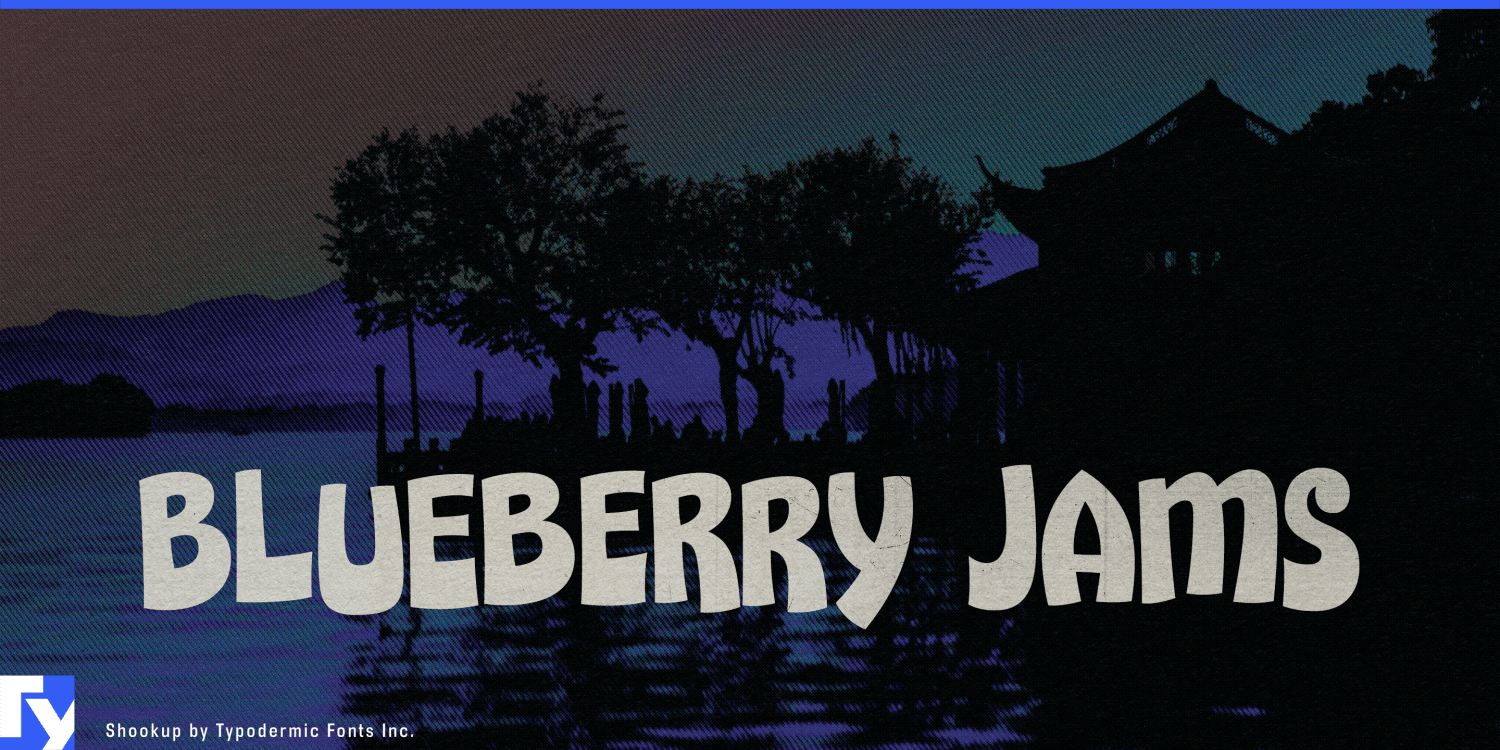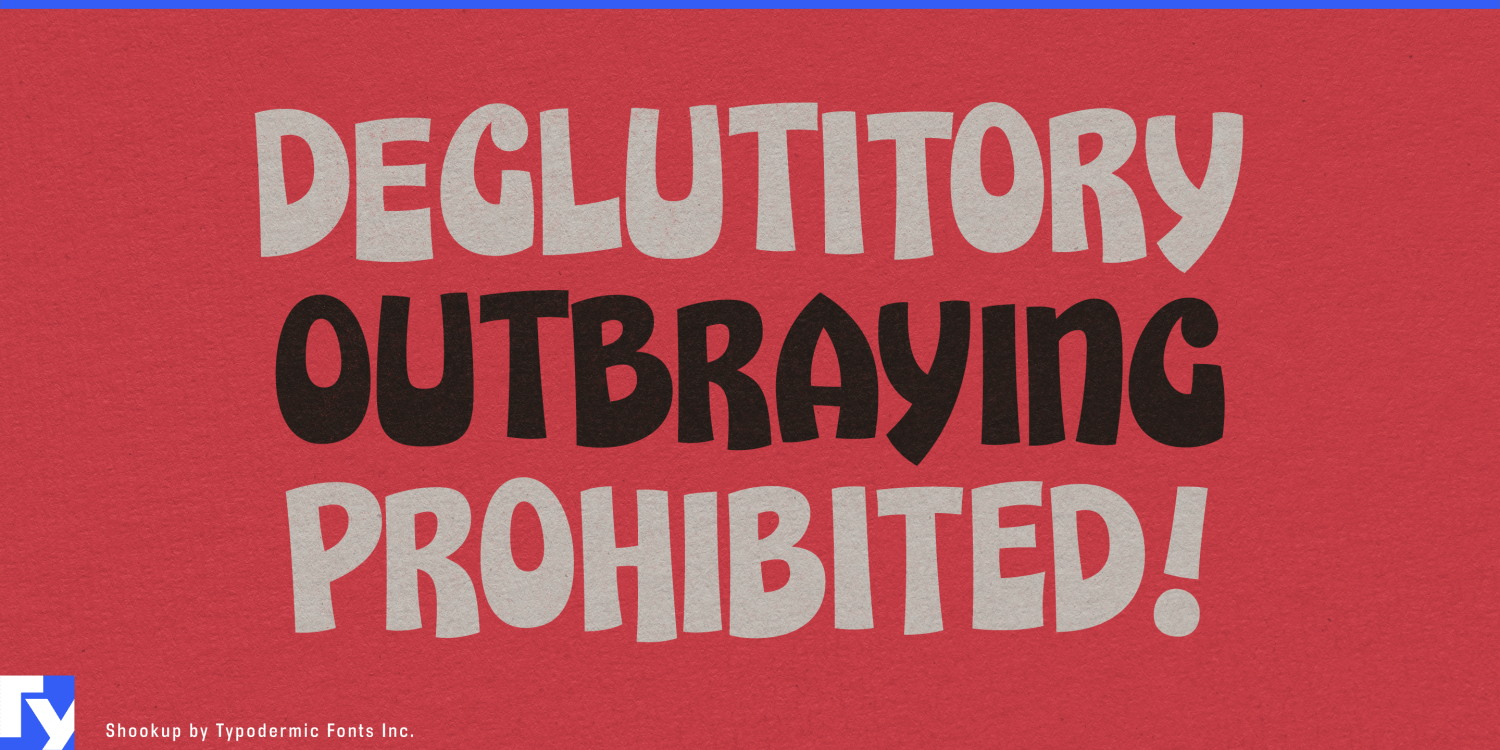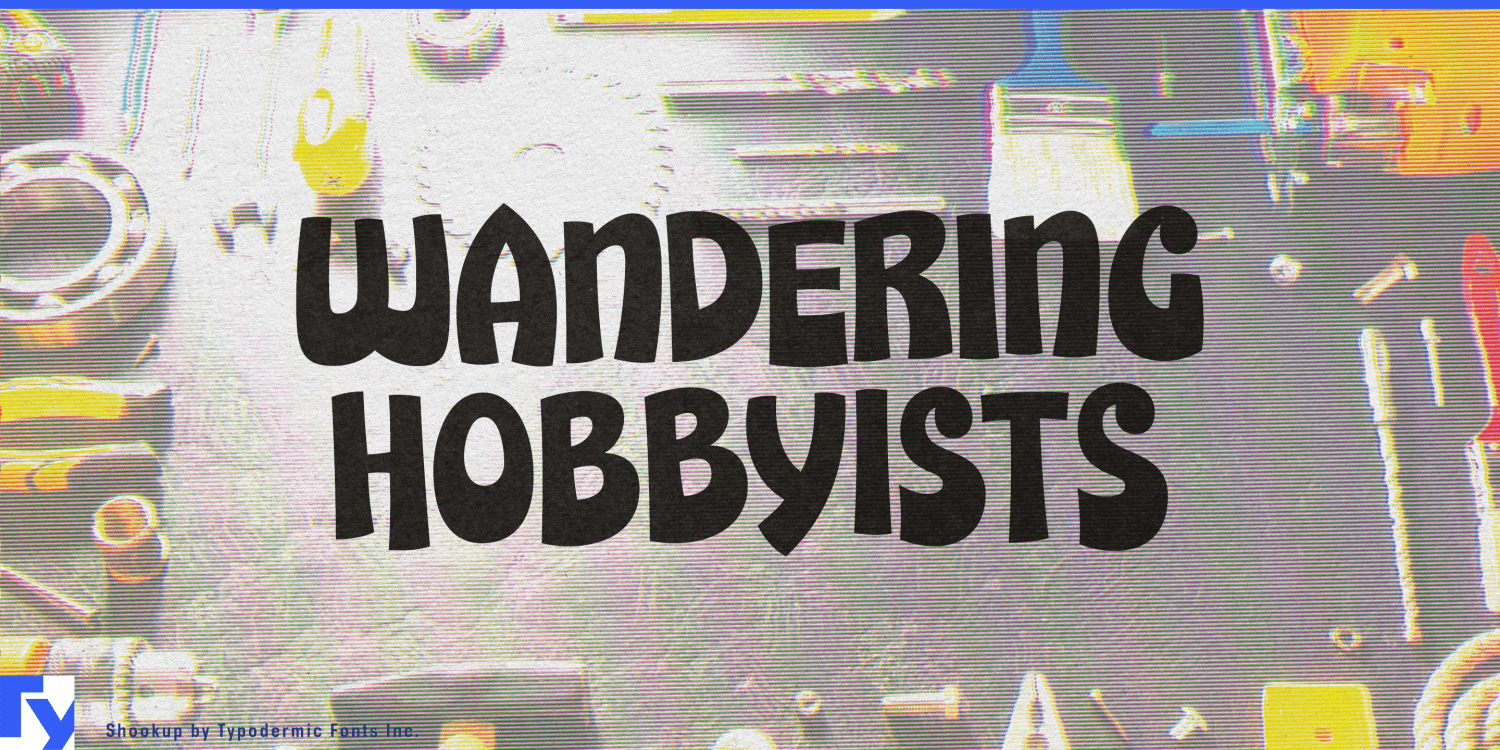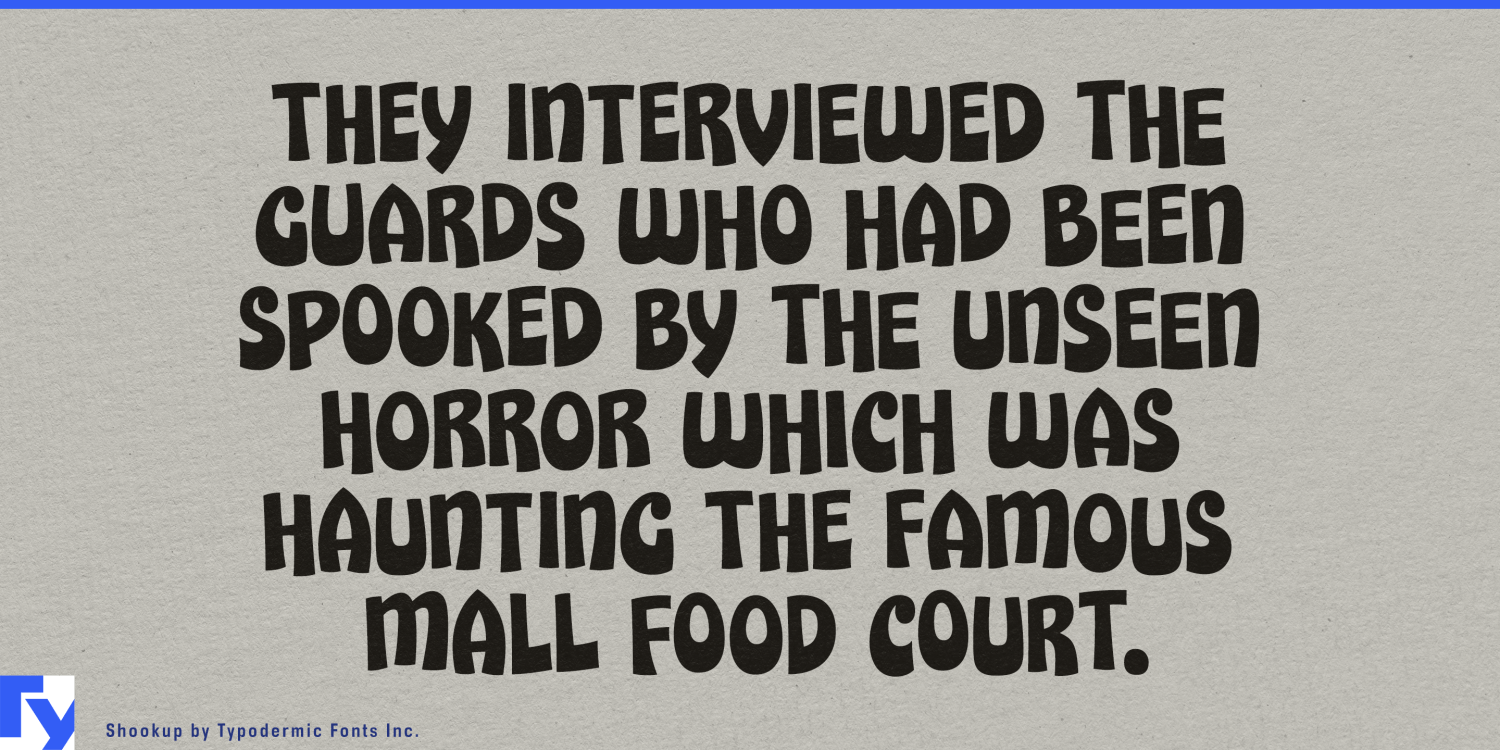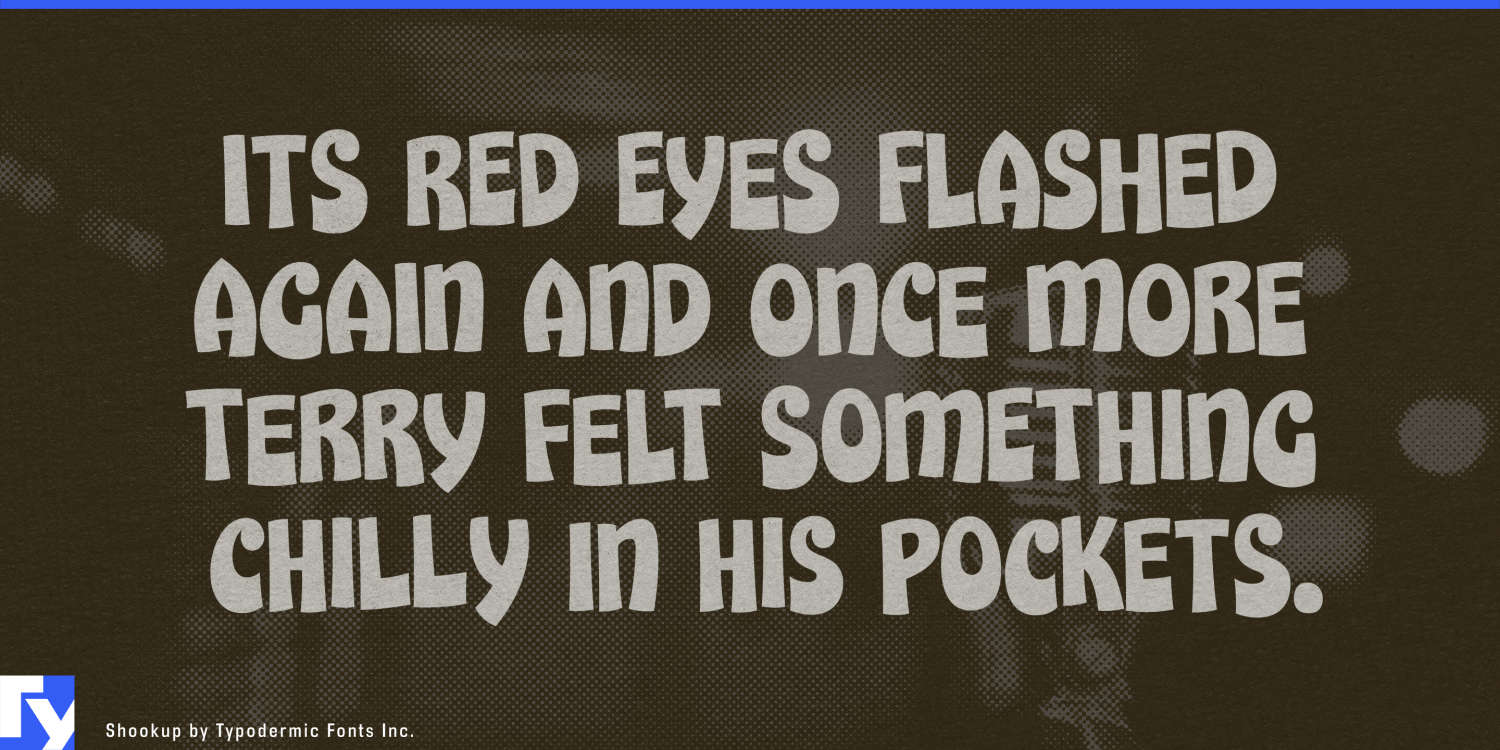
About Shookup
Prepare for a typographic joyride with Shookup, the font that turns every word into a carnival of letters. This is a celebration, a visual party that erupts on your screen or page with irresistible energy. Imagine letters that seem to bounce and sway,…